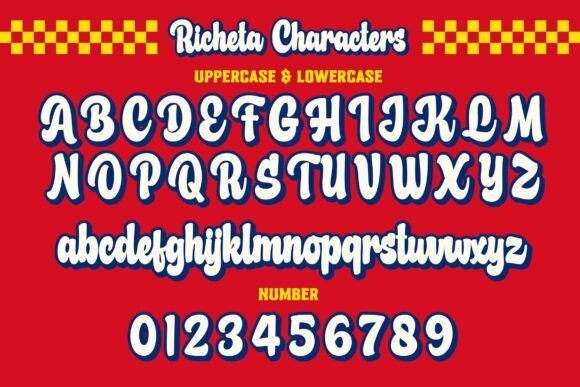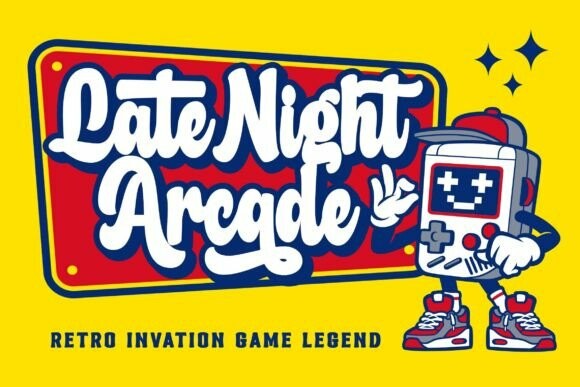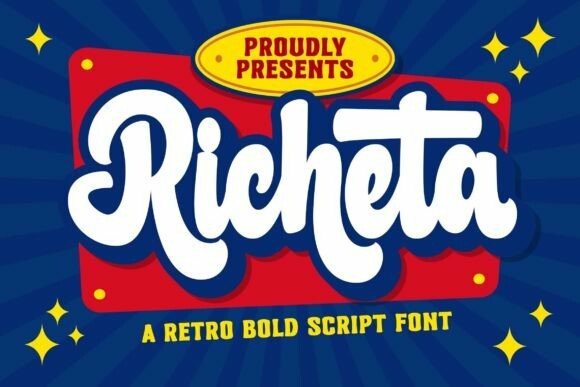
Richeta Font
Designer: Blankids Studio
Richeta Font, a retro bold script font combination is made for any professional project branding, such as logotype, watermarks, poster, branding, promotions, product packaging, etc. Every letter has a playful retro style design. This font comes in 3 styles.